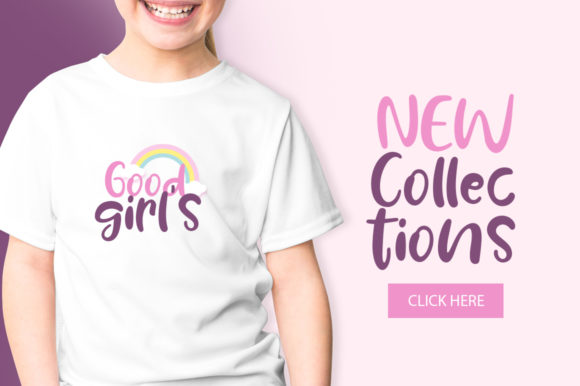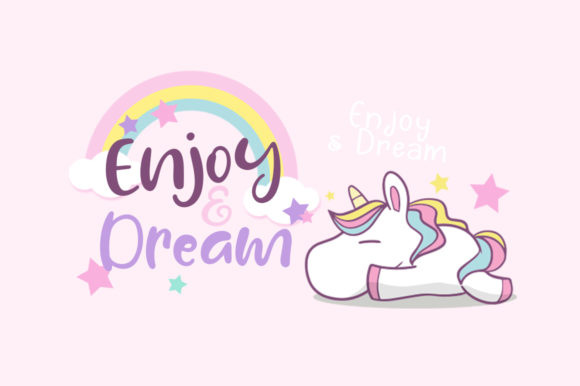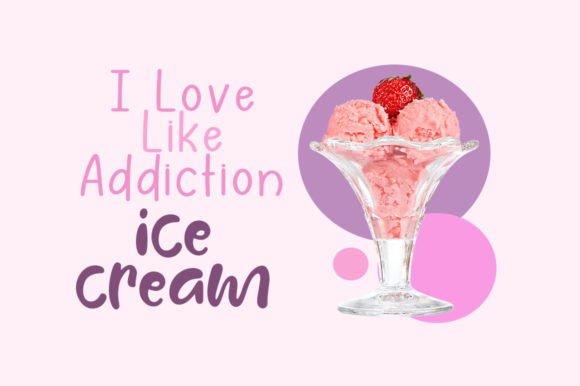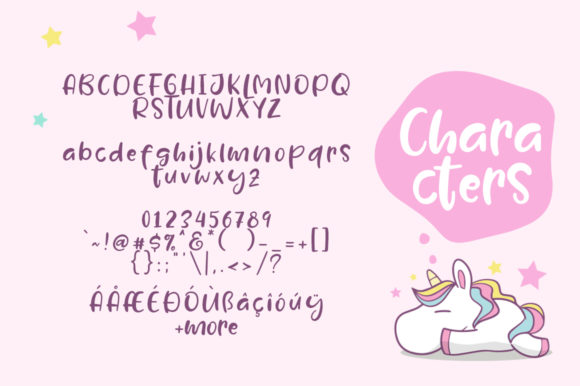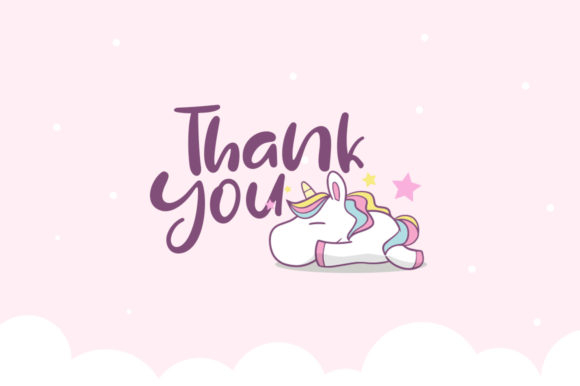
Introduction to Lazy Unicorn Font
Remember the moment when you’re working on a creative project, and you can’t find the right font to bring your design to life? It’s like searching for the perfect puzzle piece that completes the picture. But what if I told you that there’s a font that can make all the difference? Enter the Lazy Unicorn Font, a bold script font that’s perfect for any design project.
As a designer, you know how valuable a high-quality font can be. It’s the difference between a good design and a great one. And with the Lazy Unicorn Font, you’ll have access to a versatile design resource that’s sure to elevate your creative projects. Whether you’re working on a logo, a brochure, or a website, this font is the perfect addition to your toolkit.
- Lazy Unicorn Font features a unique, whimsical design that adds a touch of magic to any project.
Honest Review: Lazy Unicorn Font
I recently stumbled upon the Lazy Unicorn Font, and I must say it’s been a delightful addition to my design resource collection. As a designer, I’m always on the lookout for high-quality fonts that can elevate my creative projects.
What works well is the Lazy Unicorn Font’s versatility. It’s perfect for titles, headings, and even body text. The font’s unique design and stylish feel make it an excellent choice for designers looking to add a touch of whimsy to their work. ✨
However, I do have a few limitations to mention. The font may not be suitable for projects that require a more serious or formal tone. Additionally, the Lazy Unicorn Font may not be as comprehensive as some other font packs available on the market. ⚠️
Overall, I’m thoroughly impressed with the Lazy Unicorn Font. Its high quality, unique design, and free download make it a great resource for designers working on creative projects.
- Unique and stylish design
- Perfect for titles, headings, and body text
Lazy Unicorn Font